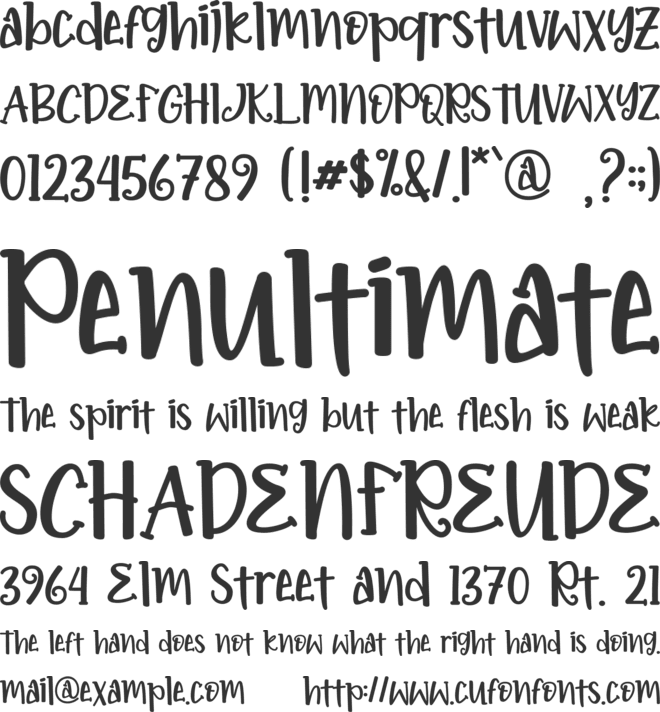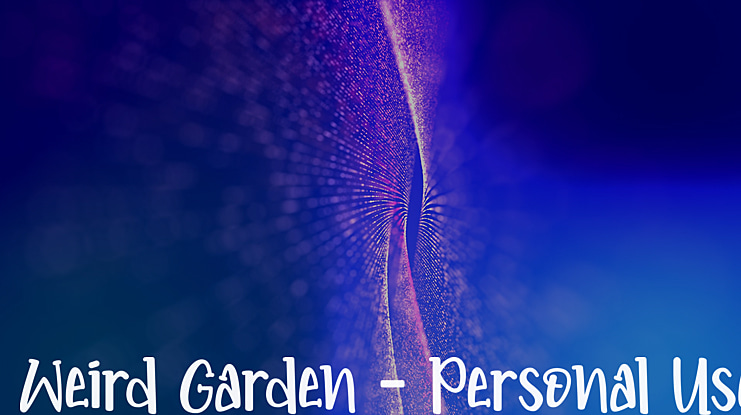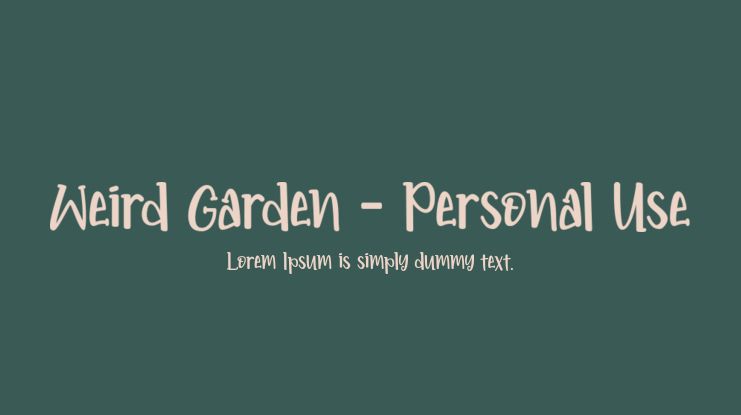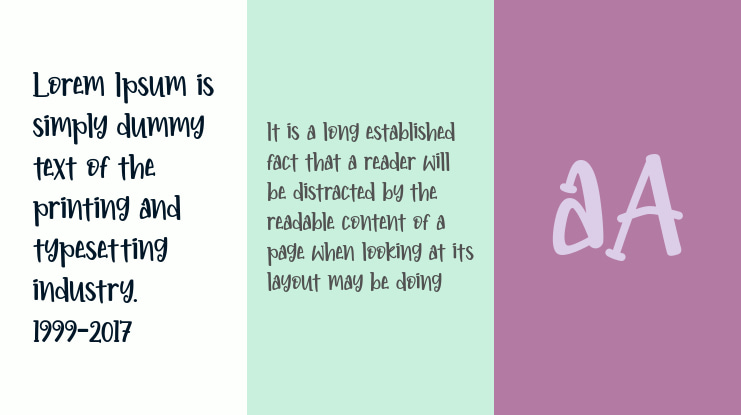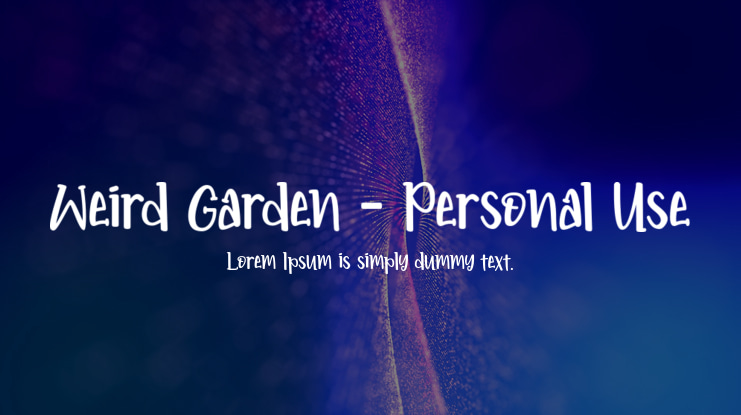
Weird Garden - Personal Use Font
Weird Garden is a cool, quirky and spooky display font. This font was particularly crafted for those who need a beautiful and refreshing look to their designs.